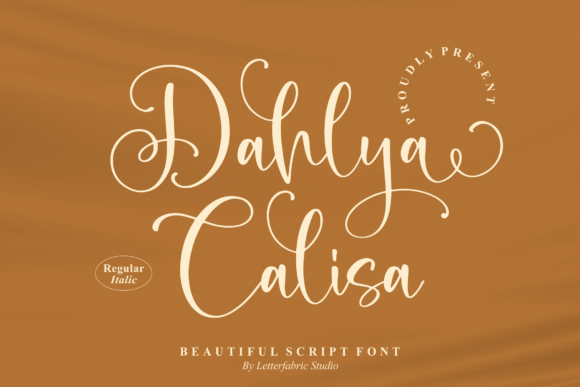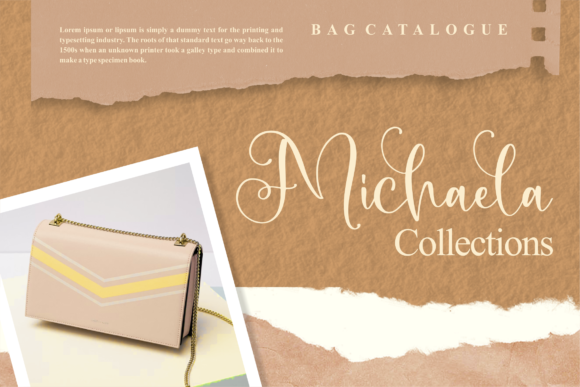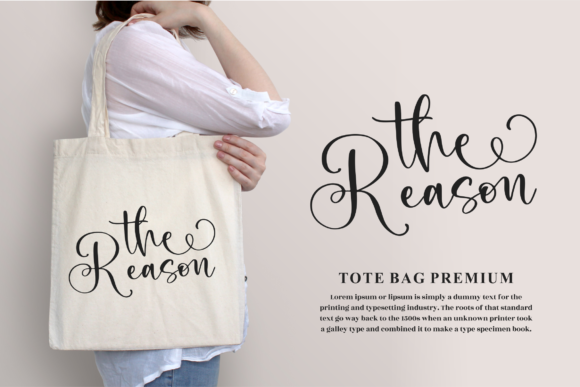
About Dahlya Calisa Font
Dahlya Calisa is a gorgeous script font. It is suitable for various projects such as: logos, branding projects, homeware designs, product packaging, mugs, quotes, watermark, special events, and all your other lovely projects that need a beautiful script taste. Dahlya Calisa is PUA encoded which means you can access all of the glyphs and swashes with ease!